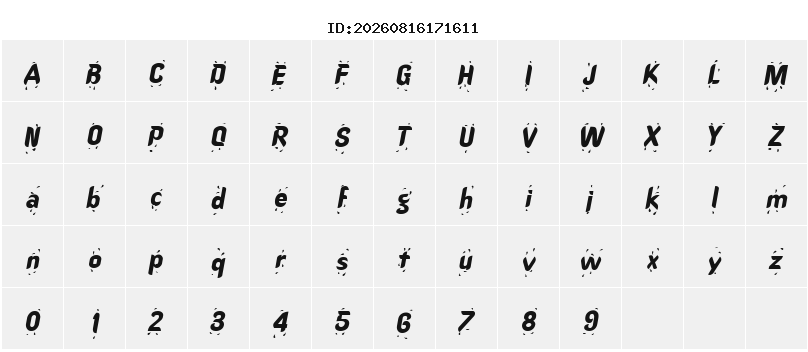
Splasher Preview
• Font Name: Splasher
• Full Font Name: Splasher Medium
About Splasher.ttf
Splasher.ttf is a modern, elegant sans-serif font designed for ultimate readability and visual harmony. Perfect for branding, headlines, web design, and print materials.